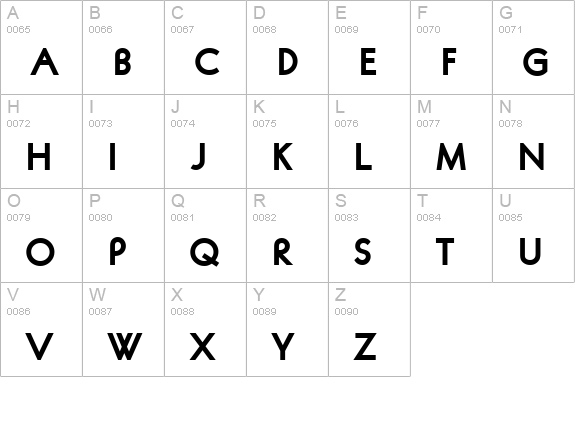
AvalonURWTBol is a striking and versatile font that exudes elegance and sophistication. With its bold and unique design, this font is perfect for making a statement in various projects, from branding to advertising to editorial design. The clean lines and sharp edges of AvalonURWTBol make it stand out, while still maintaining a sense of professionalism and readability. What makes AvalonURWTBol even more appealing is that it is available for free download at FontsMarket.com. This means that you can easily access this stunning font and use it in your projects without any cost. Whether you're a designer looking to add a touch of flair to your work or a business owner wanting to create eye-catching marketing materials, AvalonURWTBol is the ideal choice. Download this font today and elevate your designs with its modern and sophisticated appeal.